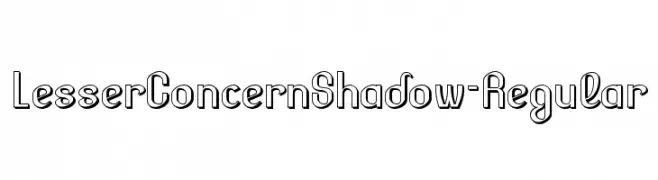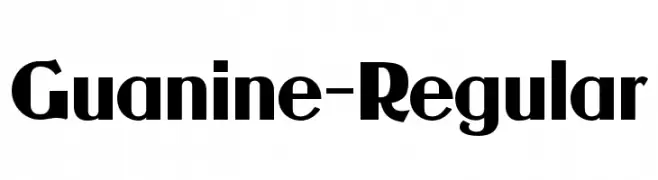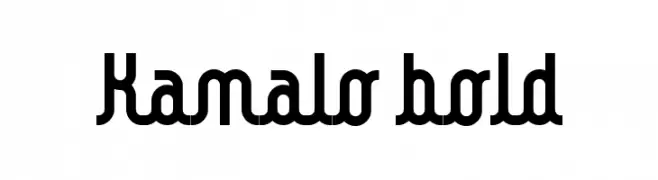
A modern vintage font with tall, narrow letterforms and rounded edges.
A geometric font with a shadow effect, offering a bold and three-dimensional appearance.
A distressed serif font with a vintage, weathered look.
A playful, bold font with cartoon-like characters and rounded edges.
A bold and impactful font with strong, thick strokes and slight curvature for elegance.
A playful, bold script font with a lively, handwritten style.
A bold, interconnected font with a modern and playful design.
A bold, playful font with decorative, rounded letterforms.